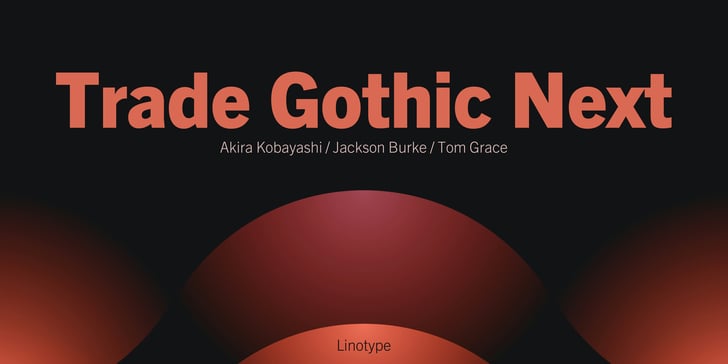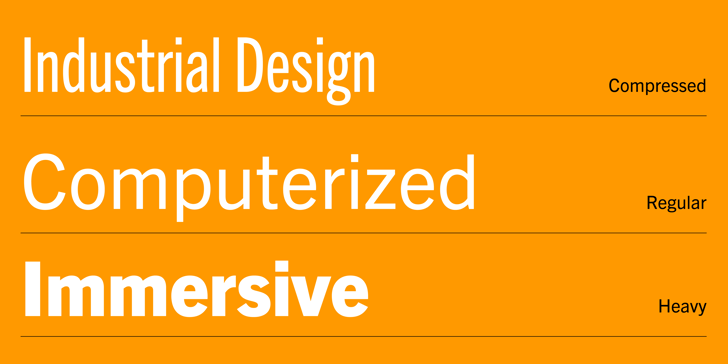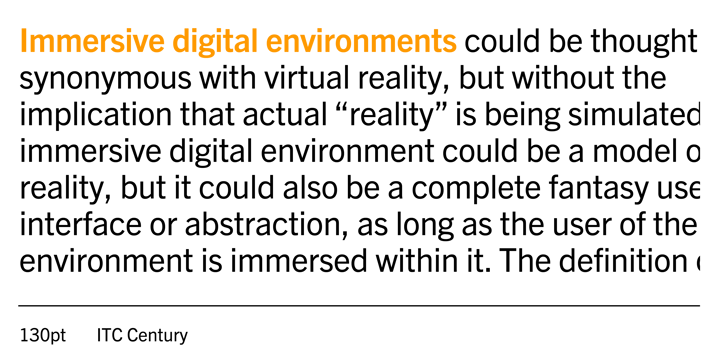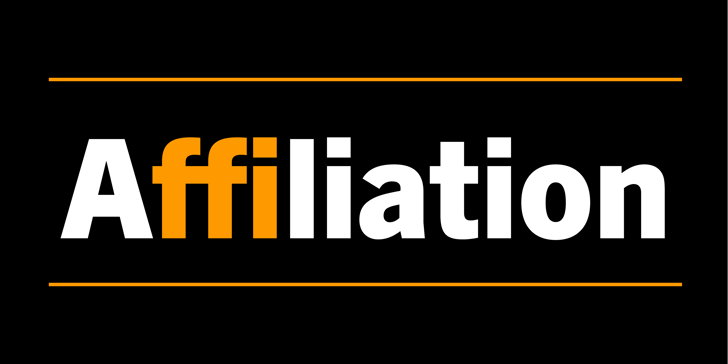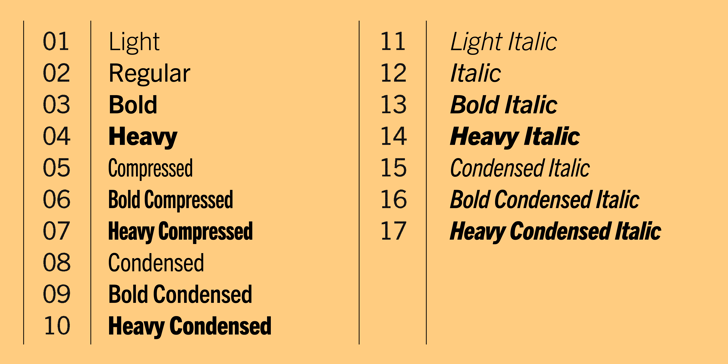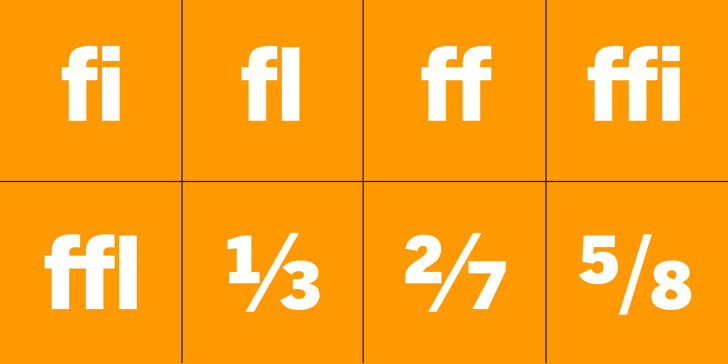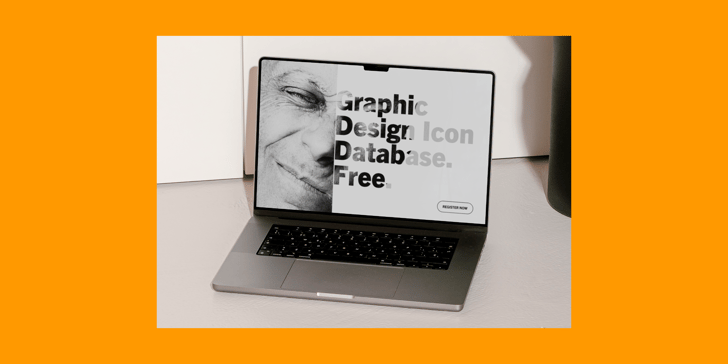
By Linotype
The Trade Gothic Next® Font Family was designed by Jackson Burke, Akira Kobayashi, Tom Grace and published by Linotype. Trade Gothic Next contains 17 styles and 1 family package options. In 1948, Mergenthaler Linotype released the first weights of Trade Gothic, designed by Jackson Burke. Over the next 12 years Burke, who was the company’s Director of Typographic Development from 1948 through 1963, continued to expand the family. Trade Gothic Next is the 2008 revision of Jackson Burke’s design. Developed over a prolonged period of time, the original Trade Gothic showed many inconsistencies. Under the direction of Linotype’s Type Director Akira Kobayashi, American type designer Tom Grace, a graduate of the MA Typeface Design in Reading, redesigned, revised and expand the Trade Gothic family. Many details were improved, such as the terminals and stroke endings, symbols, and the spacing and kerning. Moreover, there are newly added compressed widths and heavy weights perfect for setting even more powerful headlines. Trade Gothic Next brings more features and better quality for today’s demanding typographers.
Jackson Burke Akira Kobayashi Tom Grace